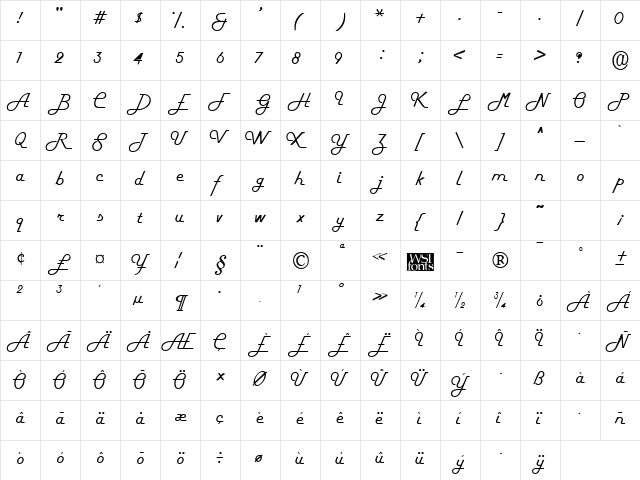
Fifties Regular
Design Context for Fifties Typeface
Fifties takes a measured approach to typography — its balanced proportions and neutral character make it a reliable workhorse for both digital and print work.